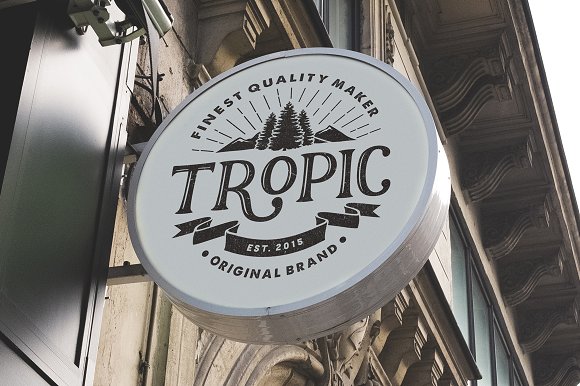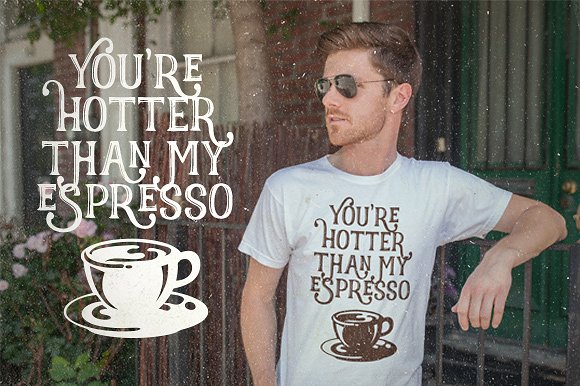
Realist Typeface
You’ll recognize the wonderful and exciting with this typeface, which is perfection in every Display Font. Introducing Realist Typeface! Realist was designed by Graptail. Realist typeface font display is made by hand, inspired by classic posters. With a combination of highly vintage feels and the OpenType features put together on it, you can Easily create an attractive harmonic message for your design. Realist comes with two variations of each variation combined with uppercase and lowercase letters.